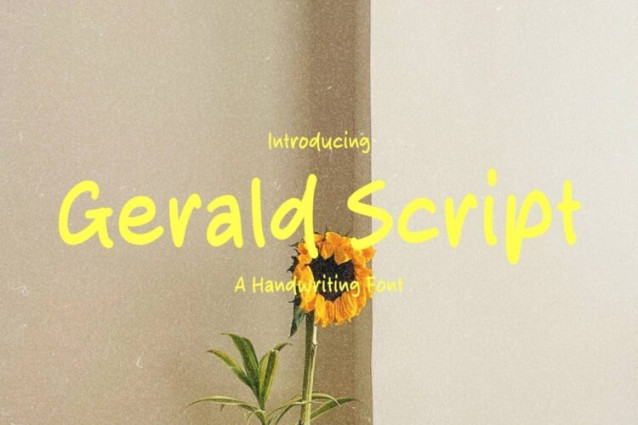
Gerald Script Font
Gerald Script Font is a simple and friendly handwritten font. Its natural and unique style makes it incredibly fitting to a large pool of designs. The only limit is your imagination!